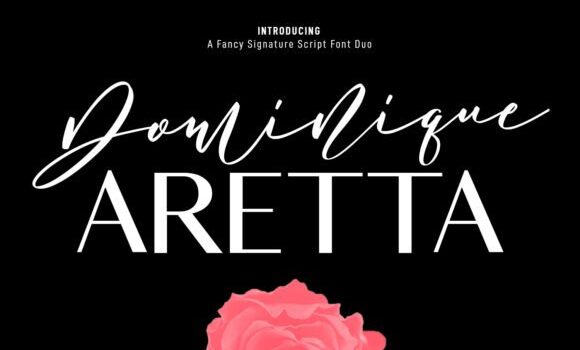
Dominique Aretta Font – Free Download Introduction to Dominique Aretta Font Dominique Aretta is a fancy modern script font paired with contrast sans serif to give you extra creative work. 📸 Preview Gallery 6 images 📌 Product Name Dominique Aretta